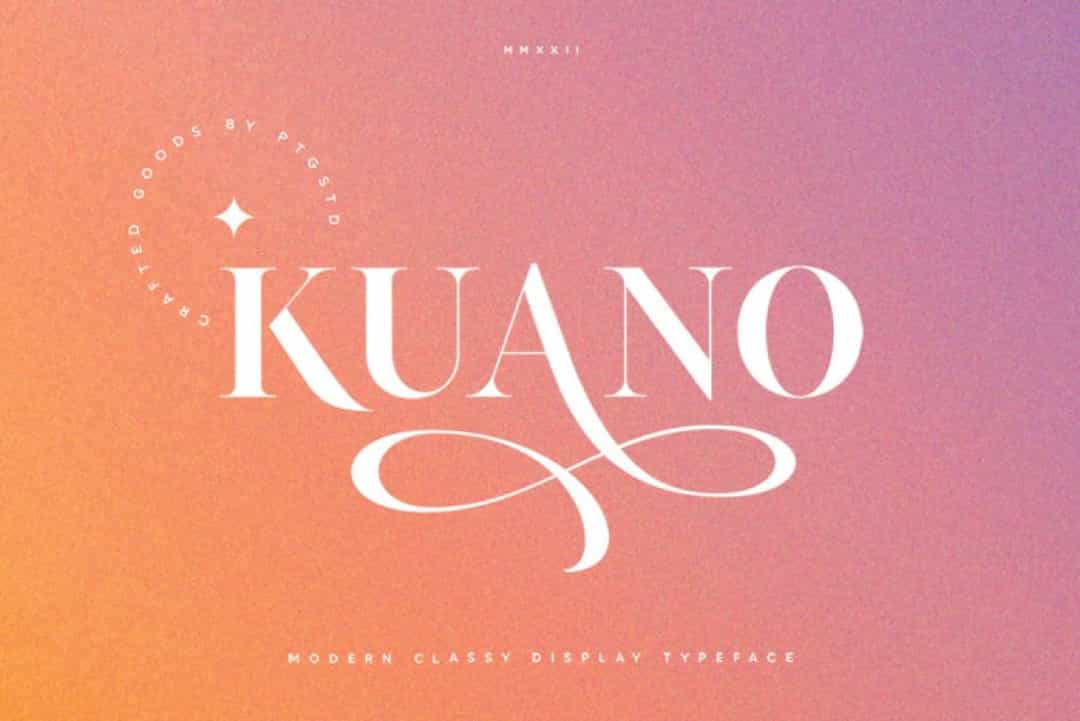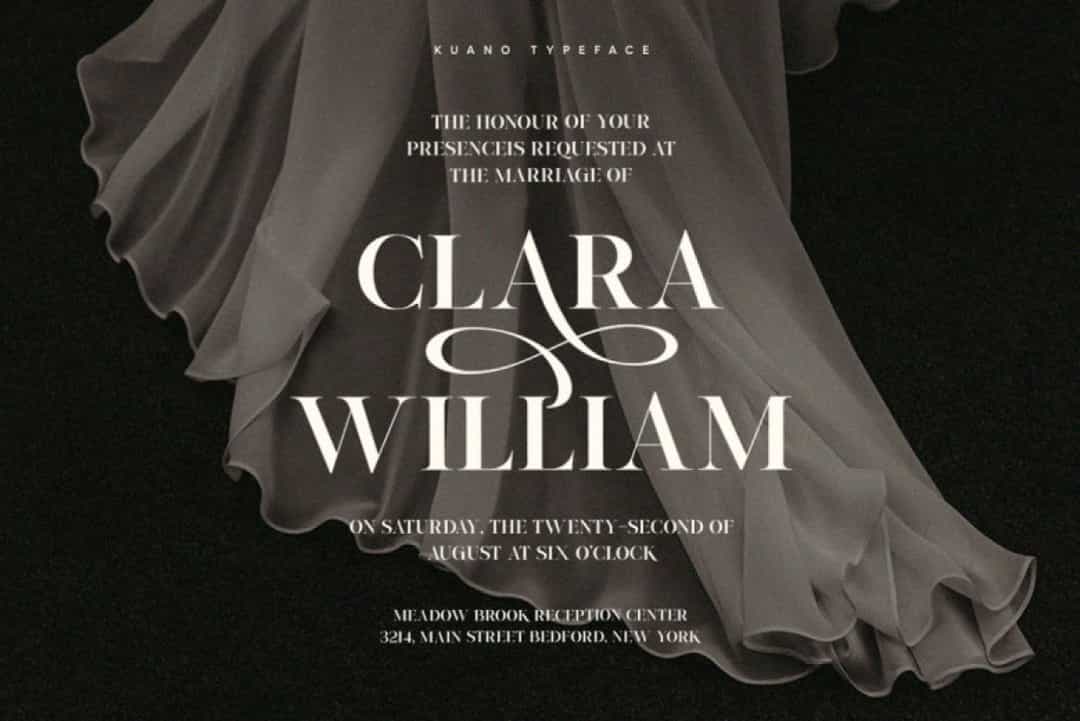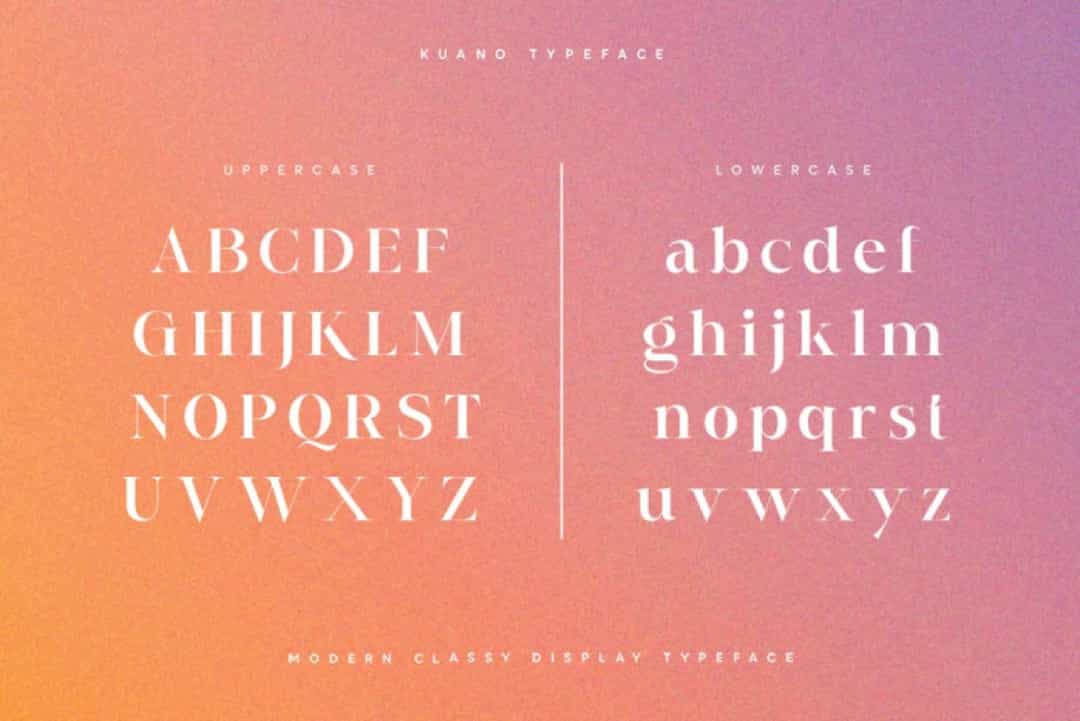
Kuano can be described as a stylish display serif font character inspired by contemporary and character ligatures. Kuano can be utilized for numerous projects including logo designs, advertisements, social media posts packaging product designs labels photo watermark invitations or any other task you require it for.